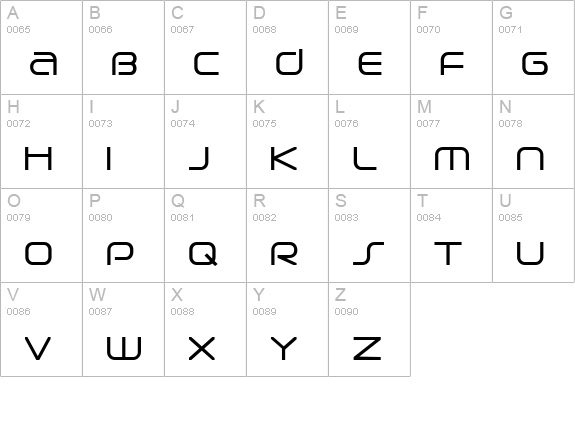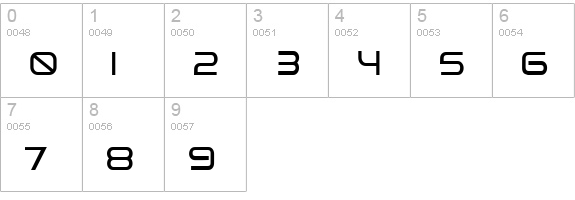
Birdman Font Details
Introducing Birdman font, a captivating and modern typeface that exudes elegance and sophistication. With its sleek lines and stylish curves, Birdman font is perfect for a wide range of design projects, from logos to branding to editorial layouts. This versatile font is sure to make your work stand out and leave a lasting impression. The best part? Birdman font is completely free to download at FontsMarket.com. So you can add this stunning typeface to your collection without breaking the bank. Don't miss out on the opportunity to elevate your designs with the unique charm of Birdman font. Download it today and let your creativity take flight!